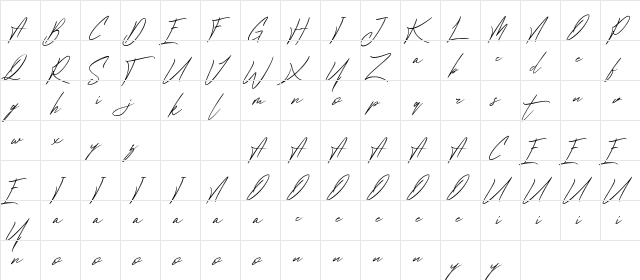
Jillfester Demo Brush Regular
Design Context for Jillfester Demo Brush Typeface
Jillfester Demo Brush flows with the natural rhythm of handwritten lettering, making it ideal for designs that call for warmth and personal expression.